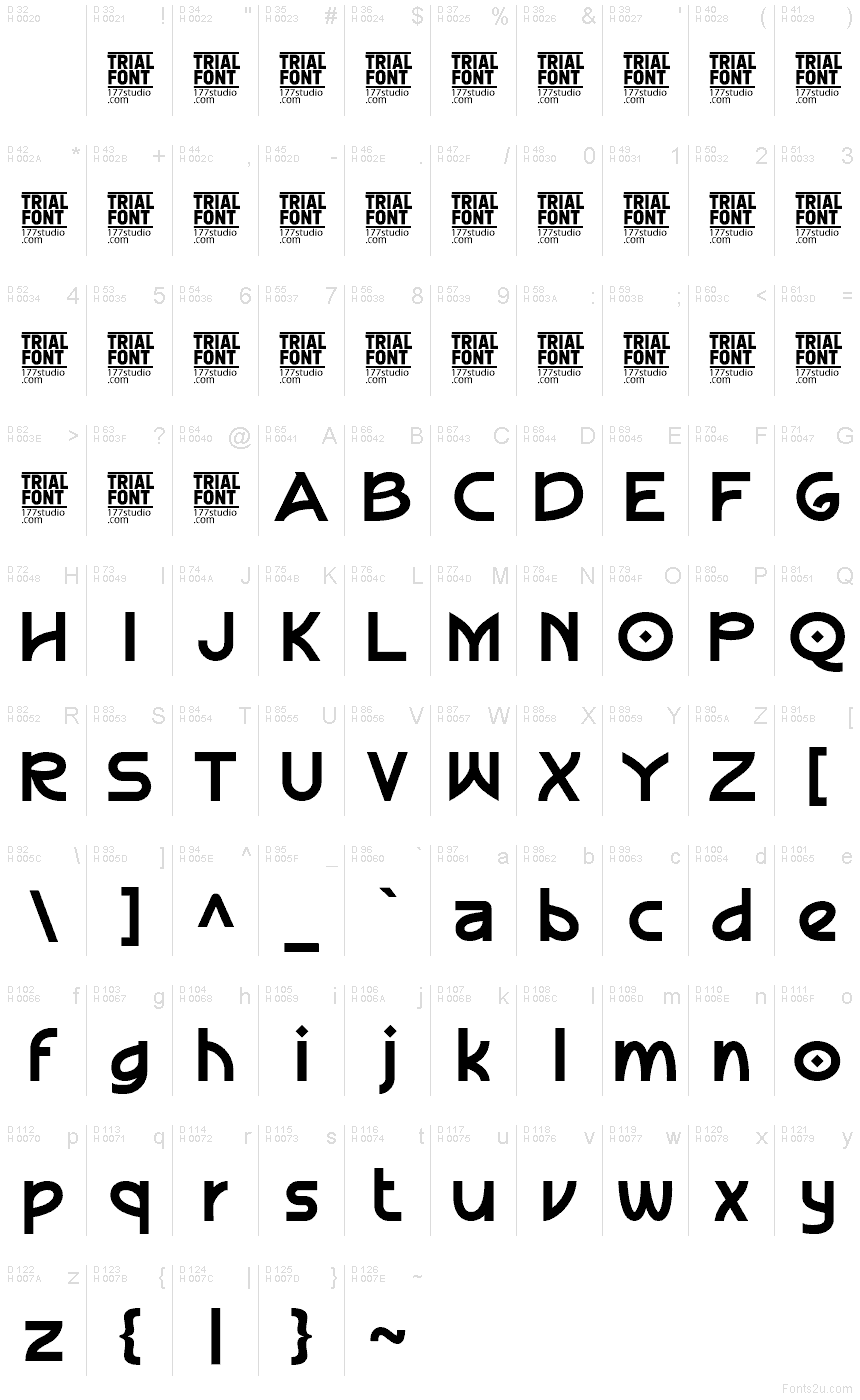
Traditional Civilization Demo Regular
Traditional Civilization font by 177Studio is a free display font inspired by the captivating art designs of the past hundred years. Retro in style and geometric in design, it has a futuristic vibe with uniform stroke width and Art Deco influence well exposed. Squared elements and sharp sans-serifs make this typeface neutral yet artistic.
This font works for poster and music album design, label, product package, logotype, eye-grabbing titles for books or blog endings, website landing pages (headings), invitation (to events like weddings), social media graphics and ads.